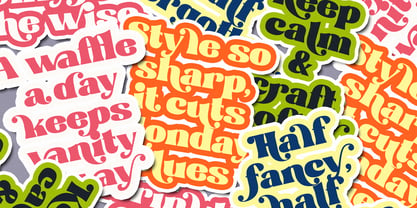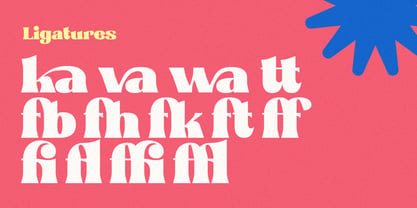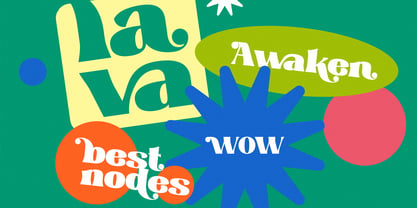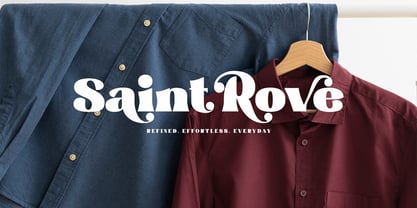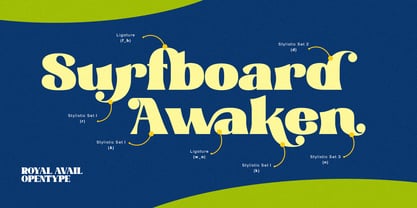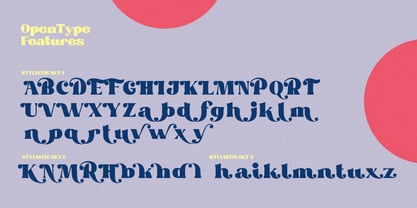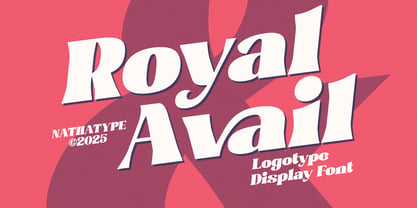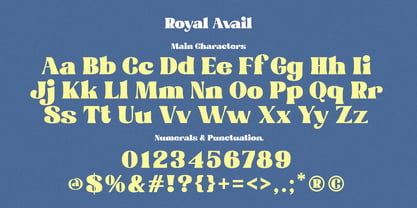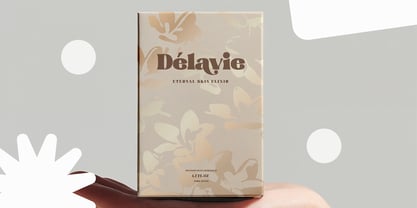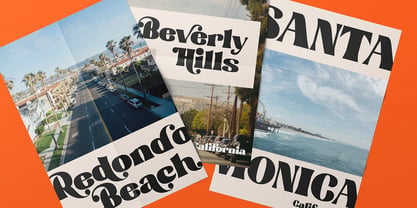
Royal Avail
by Nathatype
The Royal Avail Font Family was designed by Donis Miftahudin and published by Nathatype. Royal Avail contains 1 styles. More about this family
Royal Avail is a striking display font designed with a very thick weight. Its powerful structure and confident style create a commanding visual impact, ensuring your message stands out instantly in any design context. Crafted with precision, Royal Avail shows clearly visible contrast between thick and thin strokes, giving each character a dynamic and expressive appearance. This sophisticated contrast adds depth and elegance, blending modern typography with timeless display aesthetics. In addition, enjoy the features here. Features: Ligatures Stylistic Sets Multilingual Supports PUA Encoded Numerals and Punctuations Royal Avail fits in branding, quotes, invitations, logos, posters, and many more designs. Find out more ways to use this font by taking a look at the font preview. Thanks for purchasing our fonts. Hopefully, you have a great time using our font. Feel free to contact us anytime for further information or when you have trouble with the font. Thanks a lot and happy designing.
Designers: Donis Miftahudin
Foundry: Nathatype